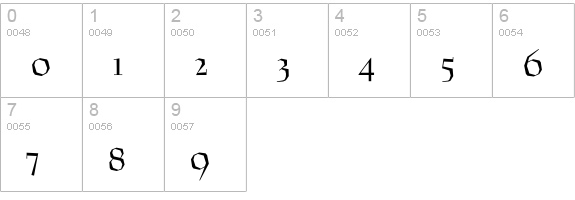
RuzenaAntikva-Regular Font Details
RuzenaAntikva-Regular is the standard, neutral variant in the RuzenaAntikva typeface family \xE2\x80\x94 well suited to general body text, paragraphs, and standard typographic work.
RuzenaAntikva-Regular is a timeless and elegant serif font that exudes sophistication and class. With its delicate serifs and graceful curves, this font radiates a sense of traditional charm while still maintaining a modern appeal. Perfect for adding a touch of refinement to any project, RuzenaAntikva-Regular is versatile and suitable for a wide range of design needs. And the best part? RuzenaAntikva-Regular is completely free to download at FontsMarket.com! This means you can elevate your designs without breaking the bank. Whether you're working on a branding project, editorial design, or even wedding invitations, RuzenaAntikva-Regular is sure to impress with its timeless beauty and effortless style. Don't miss out on this stunning font – download it for free today at FontsMarket.com and take your designs to the next level!